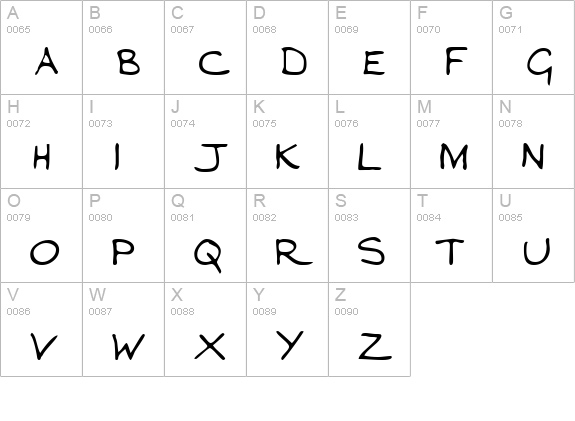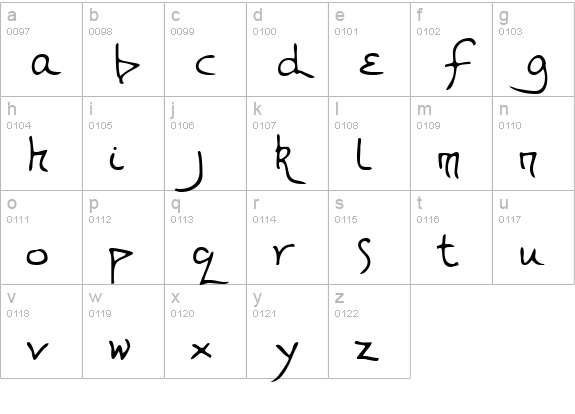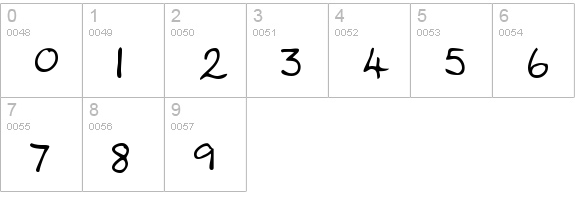
ValeriesHand Regular Font Details
ValeriesHand Regular is the standard, neutral variant in the ValeriesHand typeface family \xE2\x80\x94 well suited to general body text, paragraphs, and standard typographic work.
ValeriesHand Regular font is a charming and playful typeface that adds a touch of whimsy to any design project. With its hand-drawn style and organic curves, this font exudes a warm and friendly vibe. Perfect for adding a personal touch to invitations, greeting cards, and posters, ValeriesHand Regular font captures the essence of handwritten text with its uneven lines and natural imperfections. It brings a sense of authenticity and uniqueness to your designs, making them stand out from the crowd. ValeriesHand Regular font is freely available to download at FontsMarket.com, your go-to source for high-quality fonts. Whether you're a professional designer or an amateur enthusiast, you can easily access this font and elevate your creations to the next level. The versatility of ValeriesHand Regular font is another reason to love it. It works well for both bold and delicate designs, adapting effortlessly to various project requirements. From bold headlines to delicate script accents, this font offers a wide range of possibilities. With ValeriesHand Regular font, you can effortlessly create a wide array of designs, from playful and cheerful to elegant and sophisticated. Its friendly and approachable nature makes it suitable for a variety of themes and occasions, whether it's a children's book, a wedding invitation, or a branding project. Don't miss out on the opportunity to enhance your designs with ValeriesHand Regular font. Download it for free at FontsMarket.com and let your creativity flow.